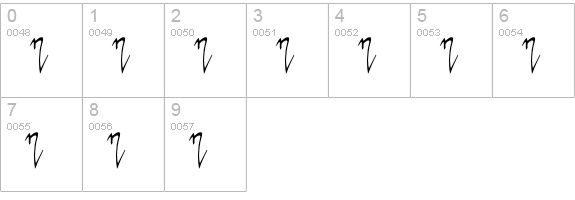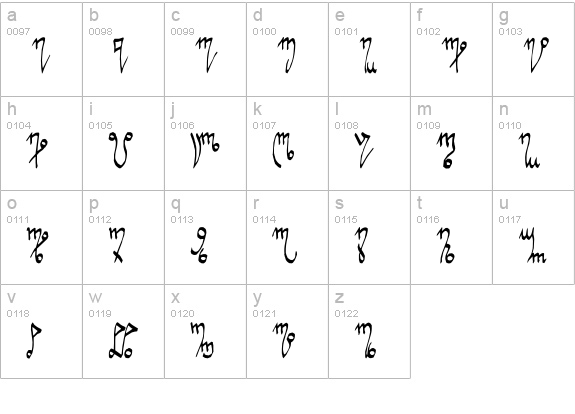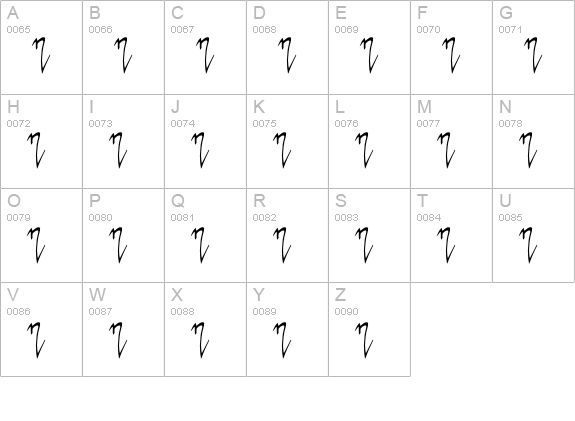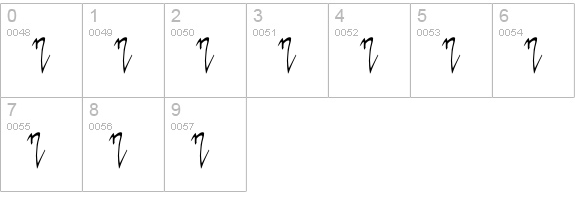
Nanduria Font Details
Nanduria font is a beautifully crafted typeface that exudes elegance and sophistication. With its sleek lines and modern design, this font is perfect for adding a touch of class to any project. Whether you're creating a logo, designing a website, or working on a branding project, Nanduria font is sure to make a statement. The best part? Nanduria font is completely free to download at FontsMarket.com. Simply visit the website and start using this stunning font in your designs today. Don't miss out on the opportunity to elevate your projects with the timeless beauty of Nanduria font - download it now and let your creativity shine!